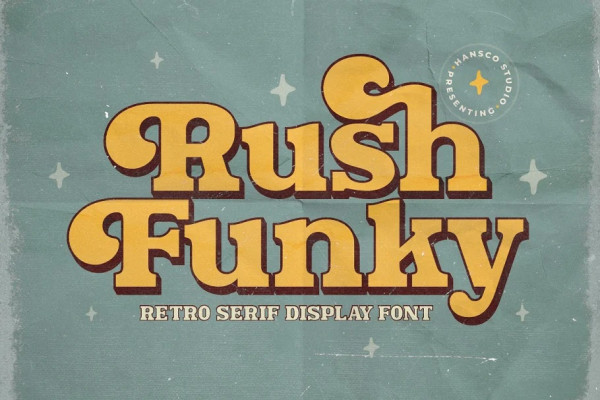
Rush Funky Font
Rush Funky Font is a serif typeface with vintage and retro look!. Equipped with all complete characters ranging from uppercase letters, lowercase letters, numbers, punctuation marks and multi-lingual support, this font is ready to be used in any project. Very suitable for Logotype, Stickers, Packaging design, Cricut Project, Headlines, Brand identity, T shirt or Apparel industry, Posters, Magazines, Books, YouTube, Instagram, Websites, Canva, Corjl or any of your creative design projects. Use this Rush Funky font to add that special modern retro serif touch to any design idea you can think of!